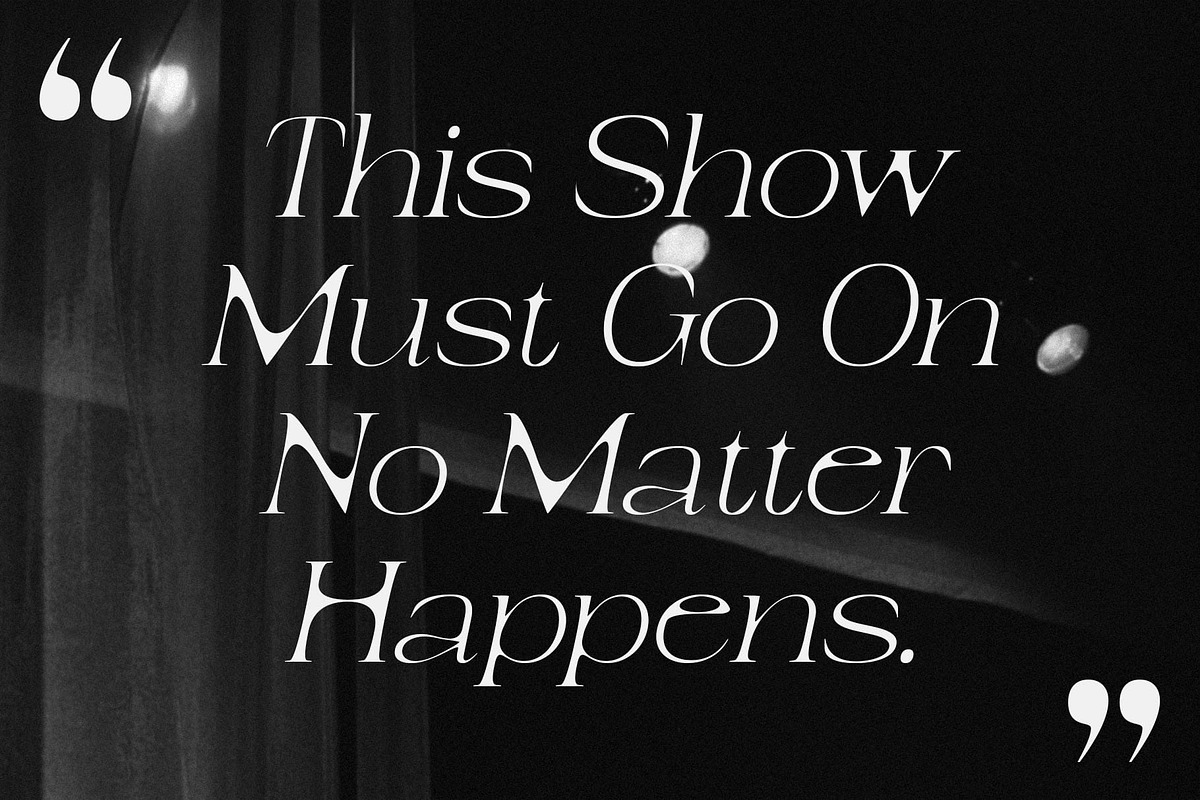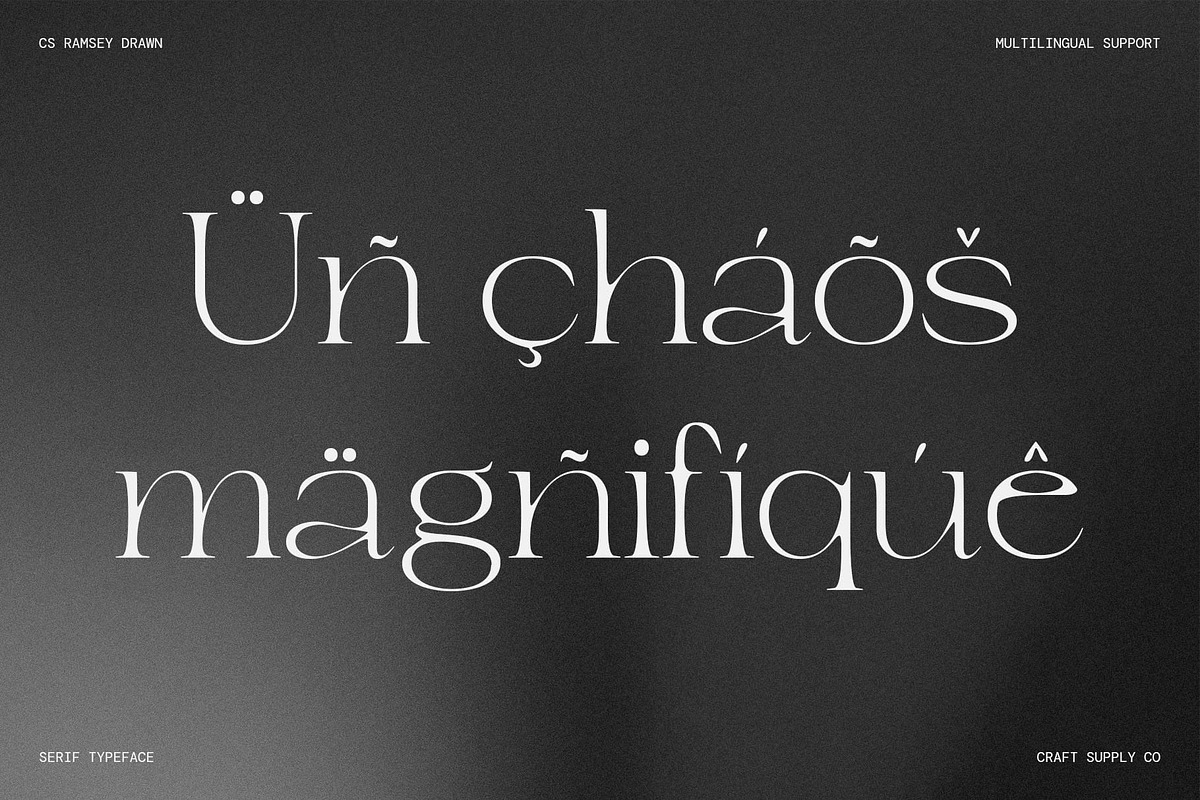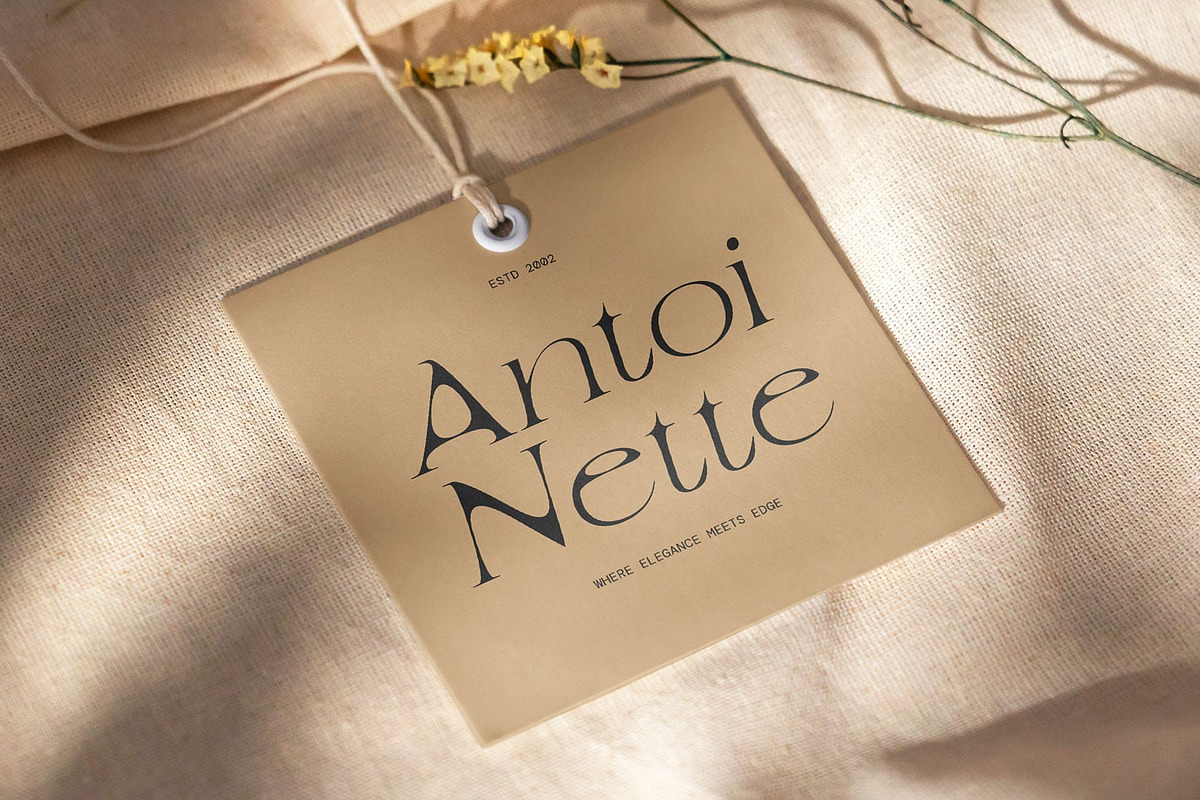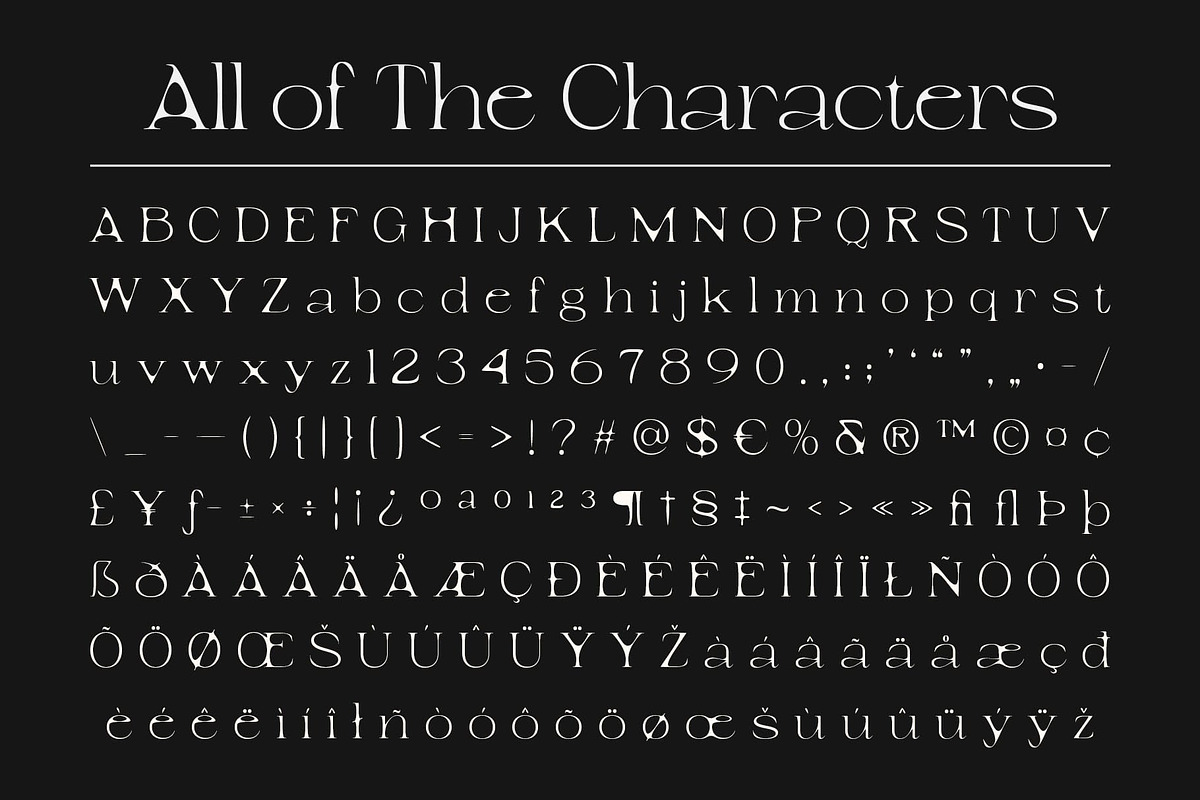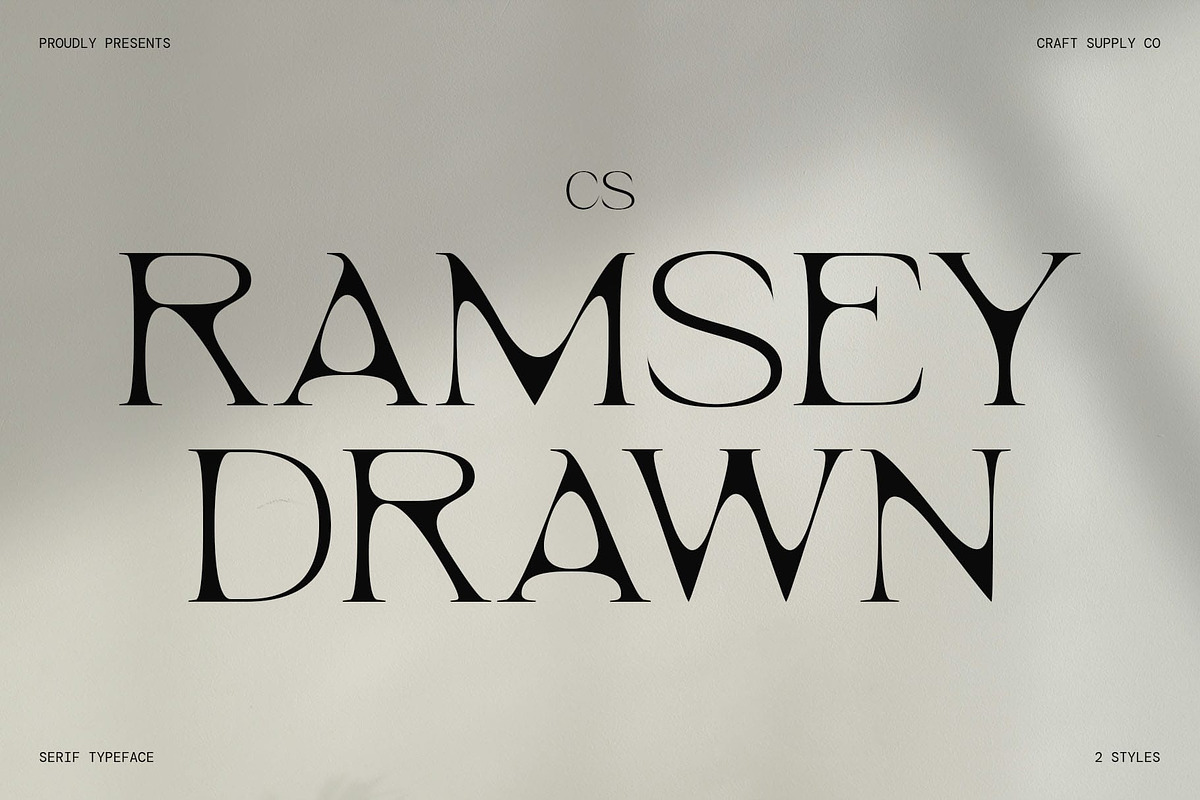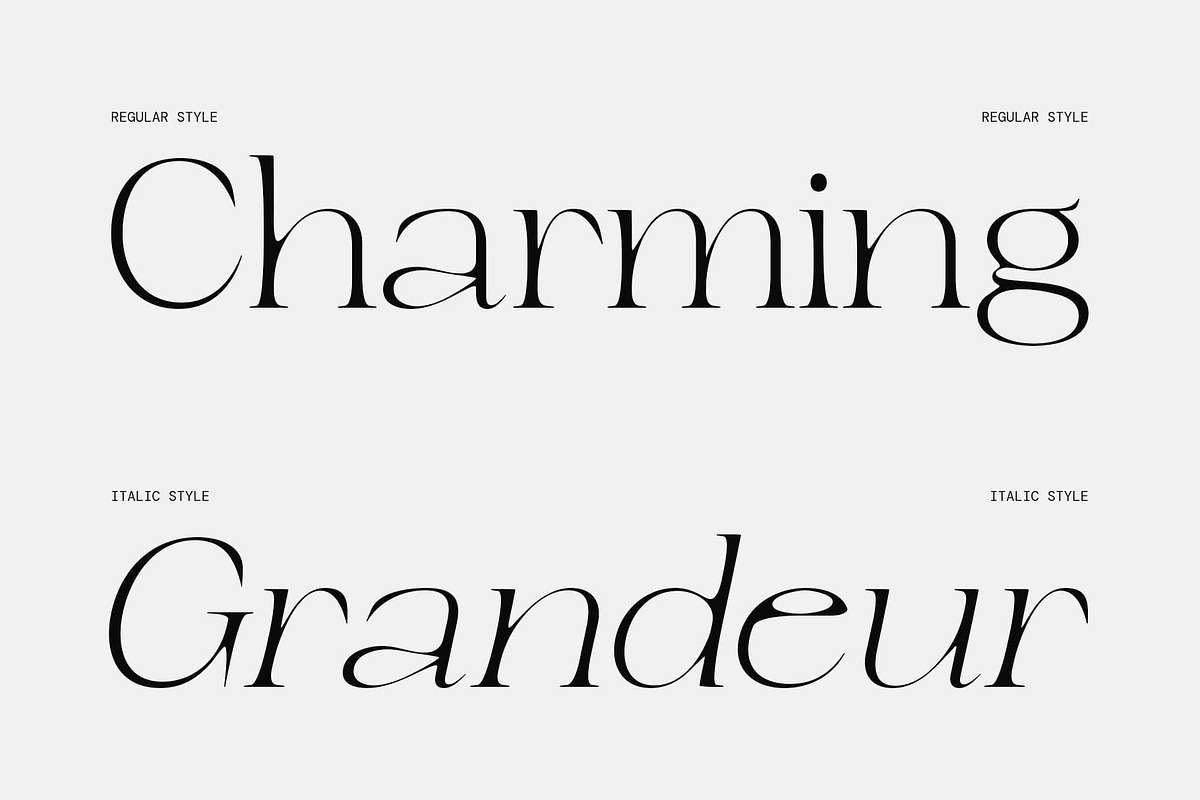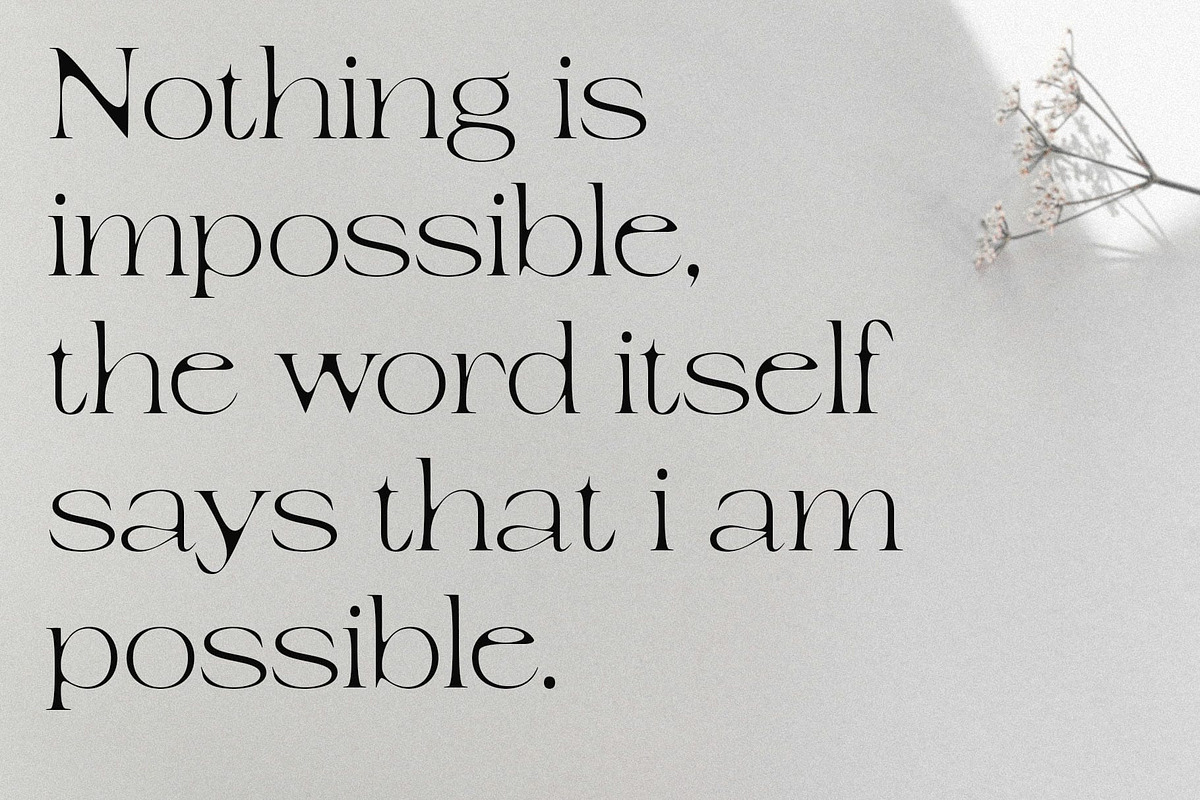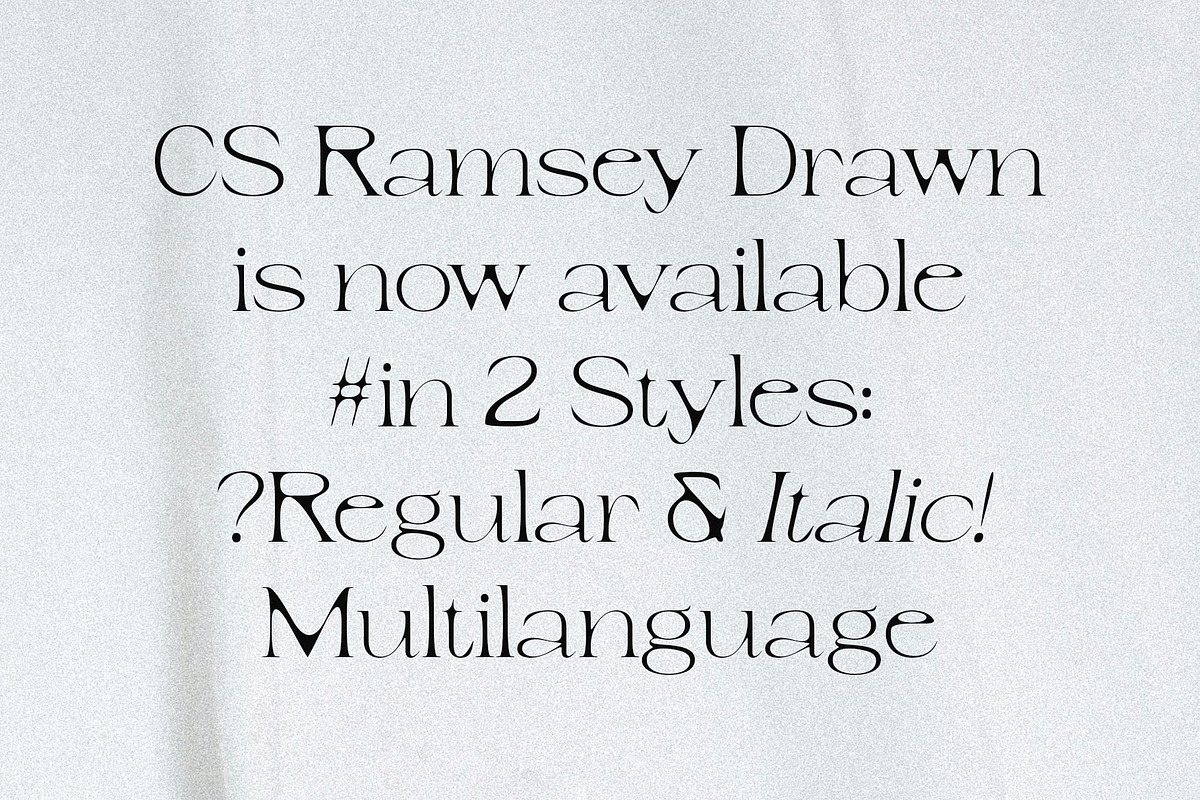
CS Ramsey Drawn
CS Ramsey Drawn: Classic Modern Serif with Handmade Sophistication
Classic Modern Serif with Drawn Effect CS Ramsey Drawn is a classic modern serif font featuring slim, clean lines and contemporary proportions. Its balanced structure conveys elegance and sophistication, while the drawn effect introduces a handcrafted quality, giving each character unique personality and depth.
Handmade Texture for Artistic Flair The drawn effect adds a subtle, artisanal texture that transforms precise modern forms into expressive, lively letterforms. This handmade detail enhances the font’s character, making it feel both personal and visually engaging.
Elegant Blend of Modernity and Tradition By combining contemporary styling with classic serif nuances, this expressive and artistic font achieves a refined balance. Its clean, sleek forms retain modern clarity, while the artistic touches highlight sophistication and timeless appeal.
Ideal for Luxury and Creative Projects This unique and characterful font is perfect for luxury branding, high-end editorial layouts, posters, and creative projects. Its blend of elegance and handcrafted artistry makes it a versatile choice for designs that aim to appear both sophisticated and personable.
Elevate Your Designs with Distinctive Style With harmonious proportions, refined serifs, and subtle handcrafted details, this sophisticated and stylish font ensures your projects stand out. It’s a typeface that communicates professionalism, artistry, and personality, enhancing the impact of any creative design.